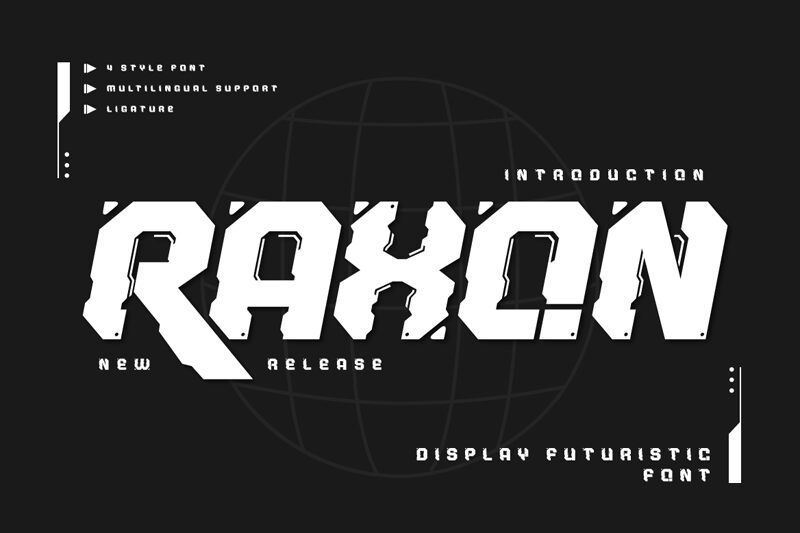
RAXON Regular
Raxon font, designed by Productype, epitomizes a bold and futuristic aesthetic that captures attention effortlessly. Its striking geometric forms convey a sense of innovation, making it an ideal choice for modern branding and design projects. The expanded style enhances legibility while maintaining an impactful presence, ensuring that every message stands out with clarity.
This versatile display font works seamlessly across various applications—from eye-catching posters to dynamic digital interfaces. Use Raxon to create engaging headlines or elevate your logo design, as its assertive character commands focus and intrigue. Perfect for tech-related themes or contemporary art projects, Raxon is available as a free font download, allowing designers to infuse their work with its unique flair without hesitation.
Embrace the future of typography with Raxon—your go-to choice for bold visual storytelling.